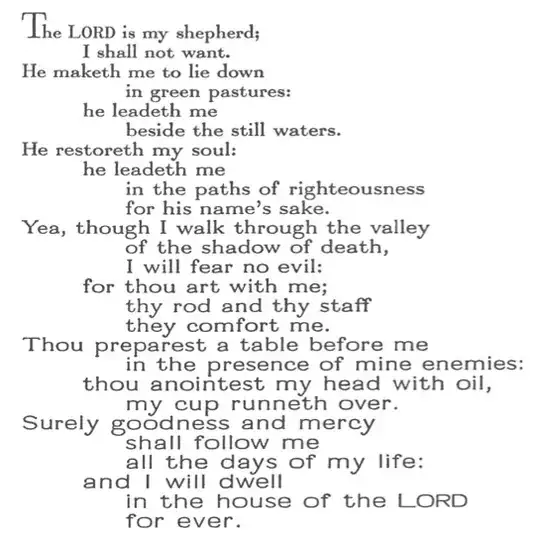
APPROACH 1
This is a poor man's imitation, I think, of what is sought. It does not work by evolving the font construction; rather, it works through a fading mechanism between two fixed fonts. Thus, in the intermediate regime, there is visible overlay.
By setting \fadefrom and \fadeto, you can choose the starting and final destinations, as I have done thrice below. Currently, the letter width of the result is the wider of the two fonts, so changing to a font of very different width would not work well.
This uses a \FadeAfter{<length>}{<text>} syntax.
The 1st paragraph fades from roman to sans font of CM.
The 2nd paragraph fades from CM \ttfamily to the PCR (Courier) font.
The 3rd paragraph fades from CM roman to Palatino roman.
Below, I try it with
I can achieve progressive stretching of the result.
APPROACH 2
By replacing the \fadehelperB macro, and using cool things like Bruno's \slantbox (Shear transform a "box") and Malipivo's pdf specials (TikZ: halo around text?), I can produce a result that does not involve overlaid fonts. However, it does not represent a true transformation between two arbitrary fonts. Rather, it simultaneously and continuously transforms a single font in 3 ways:
changes the horizontal stretch;
changes the font weight; and
changes the font slant
In the example below, the font outline thickness (a pdfliteral parameter) changes from 0.66 to 0; the horizontal stretch varies from 1.75 to 1; and the slant varies from 0.25 to 0.